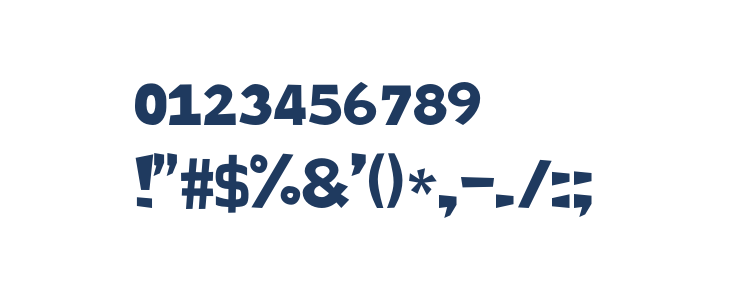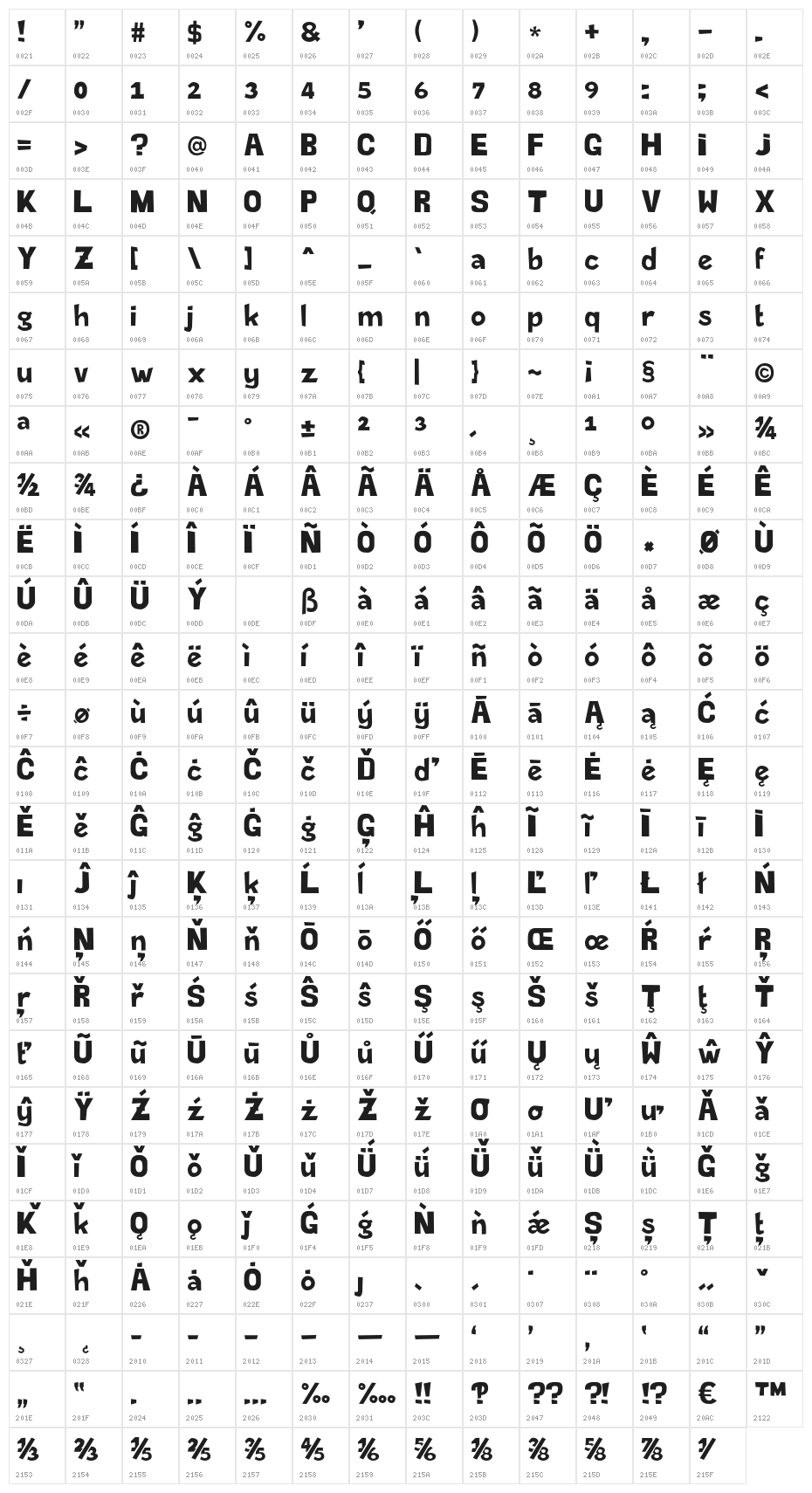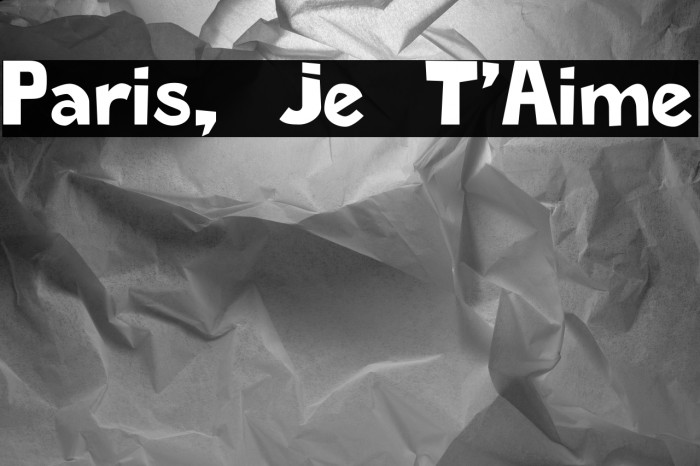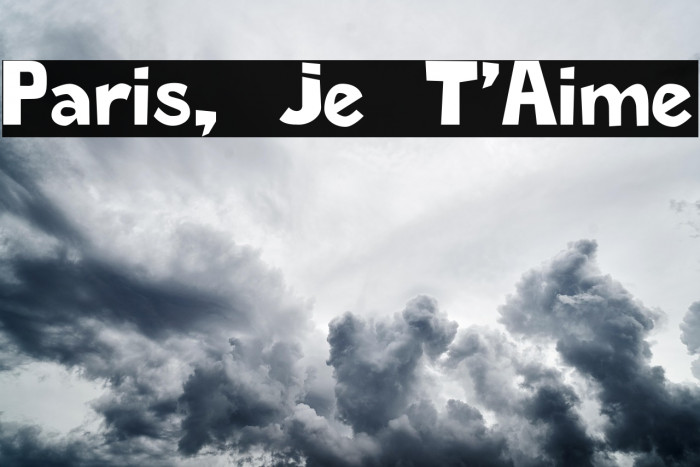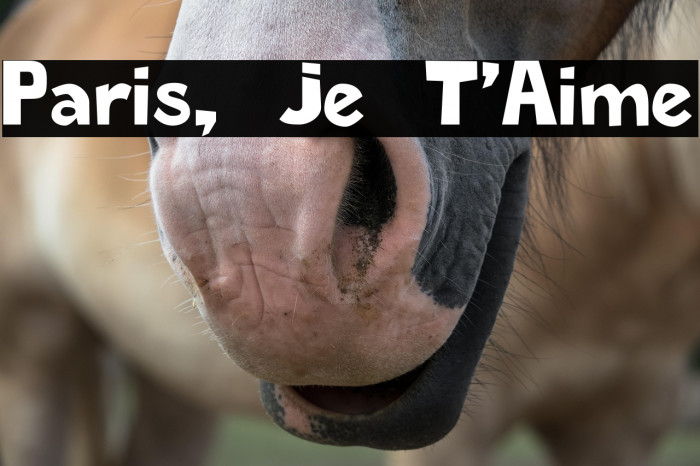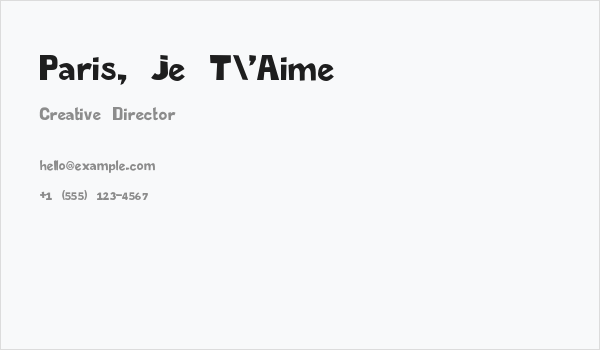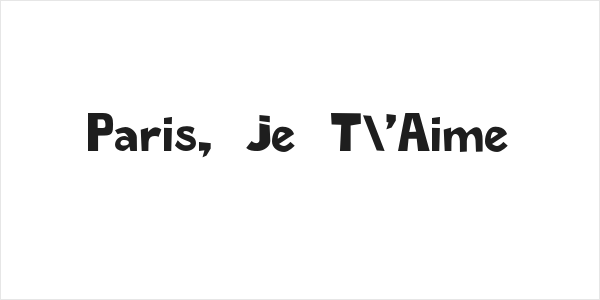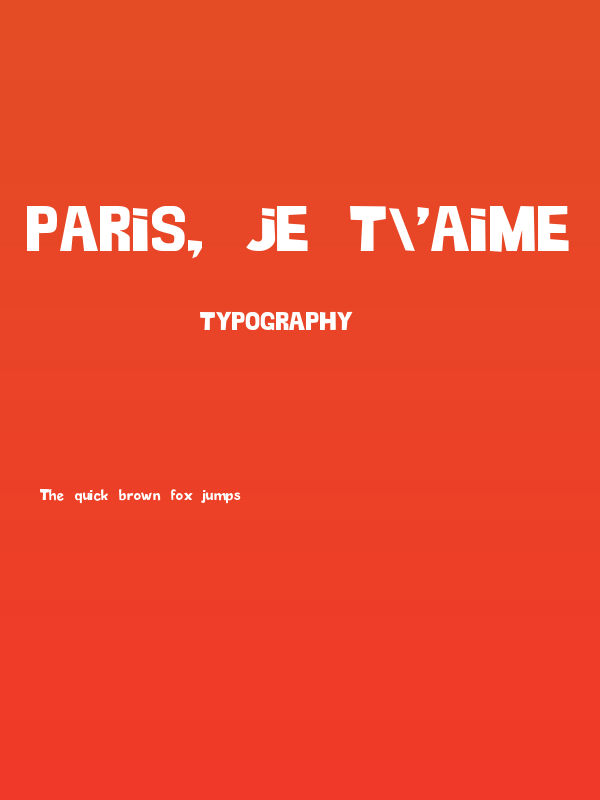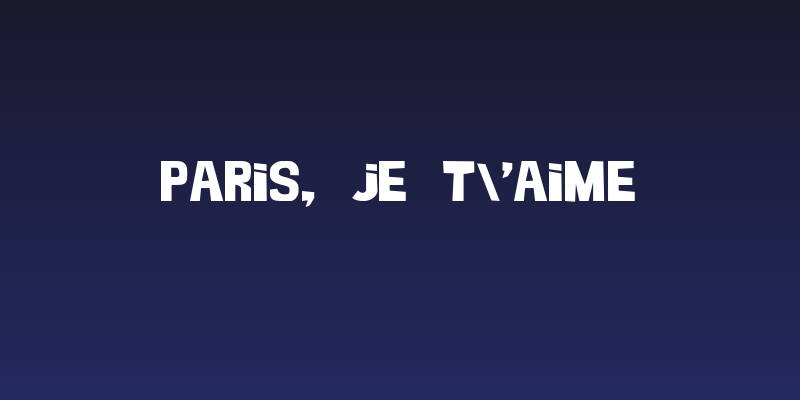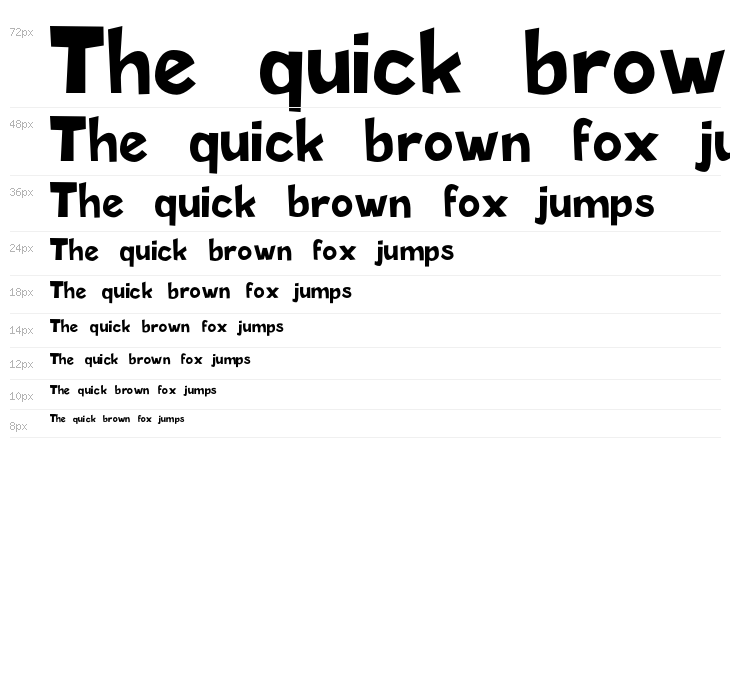
Paris, Je T'Aime Font
Paris, Je T'Aime Description
This font features a playful and bold style, characterized by its thick, uneven strokes and slightly irregular shapes. The uppercase letters are robust and commanding, while the lowercase letters maintain a whimsical, hand-drawn appearance. The numbers and special characters follow the same playful aesthetic, making the font suitable for projects that require a touch of fun and creativity. Its unique style is reminiscent of vintage poster designs, yet it maintains a modern edge with its bold presence.
| Overall Style | Playful, Vintage, Modern |
| Proposed Projects | Ideal for children's book covers, playful branding, posters, and creative advertising. |